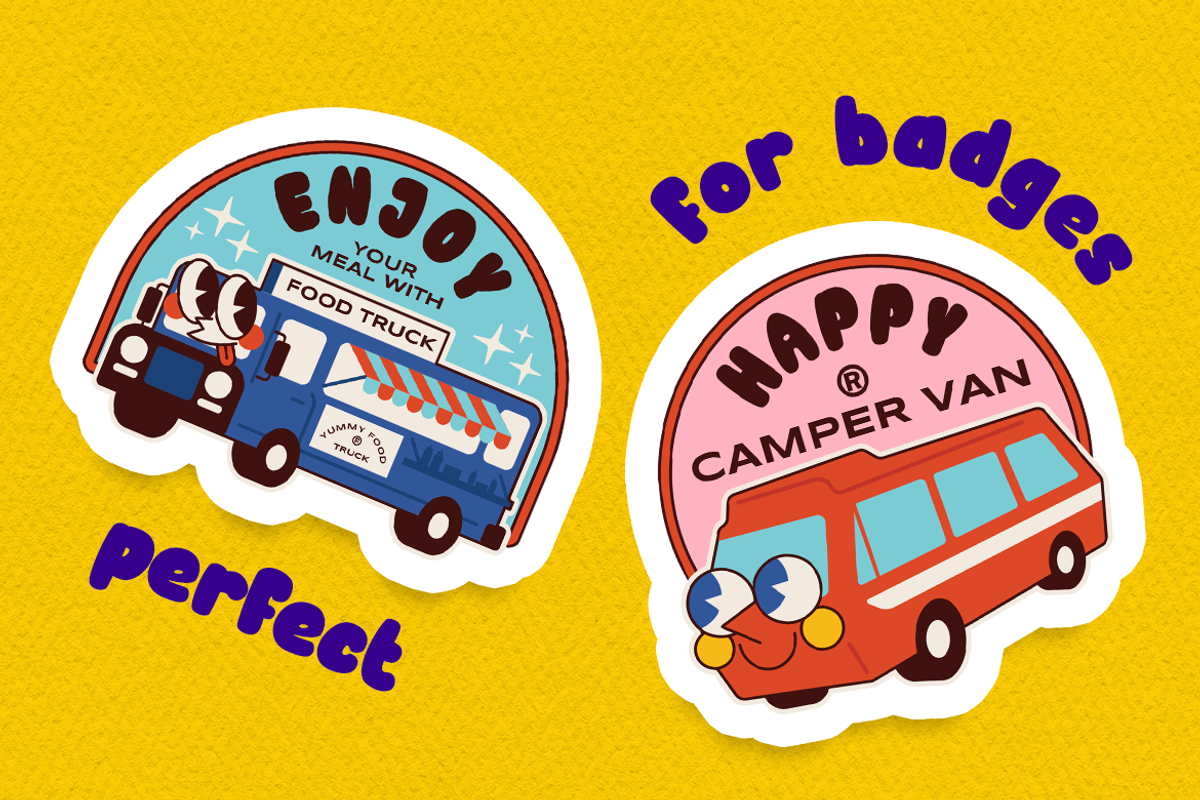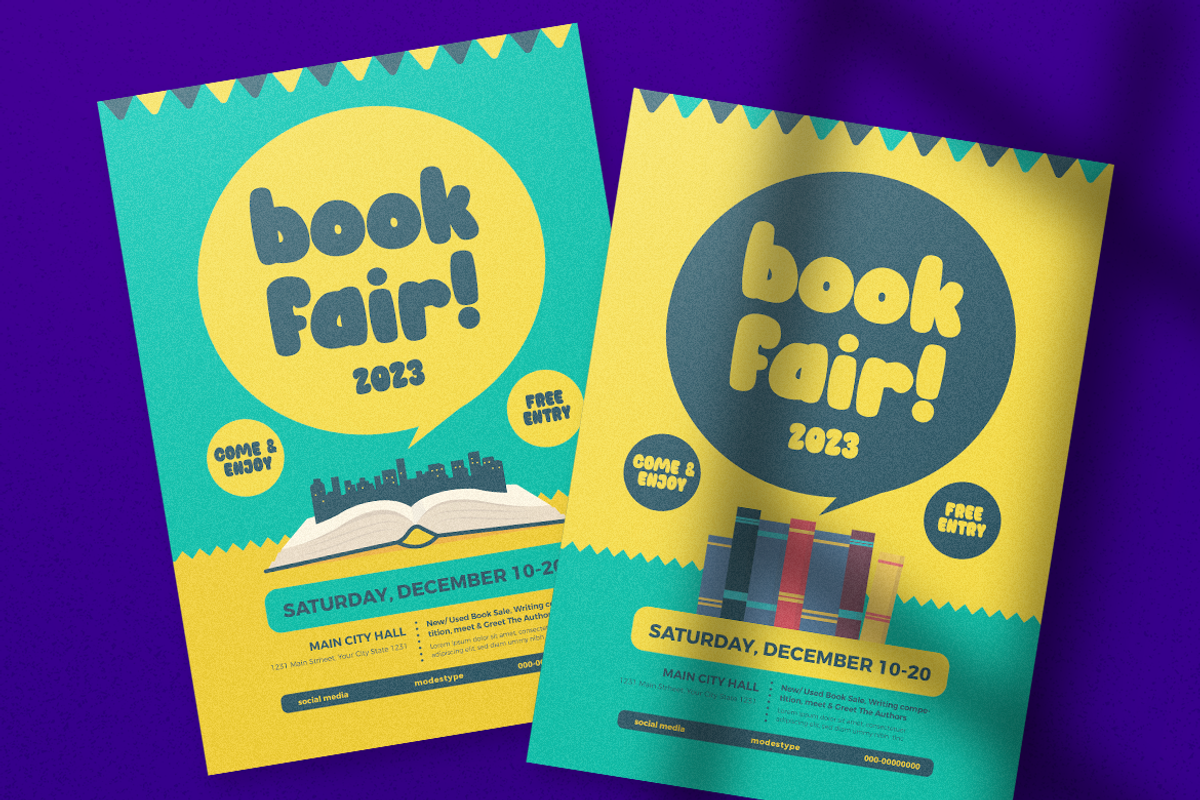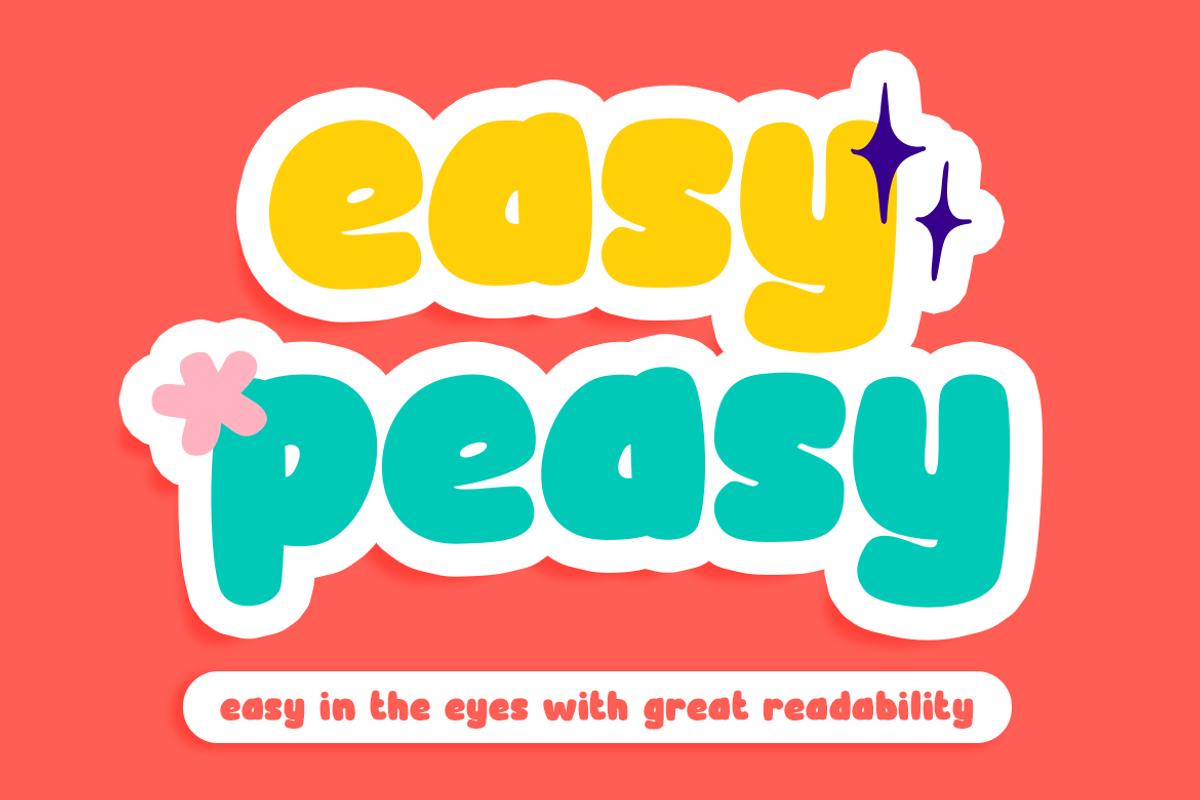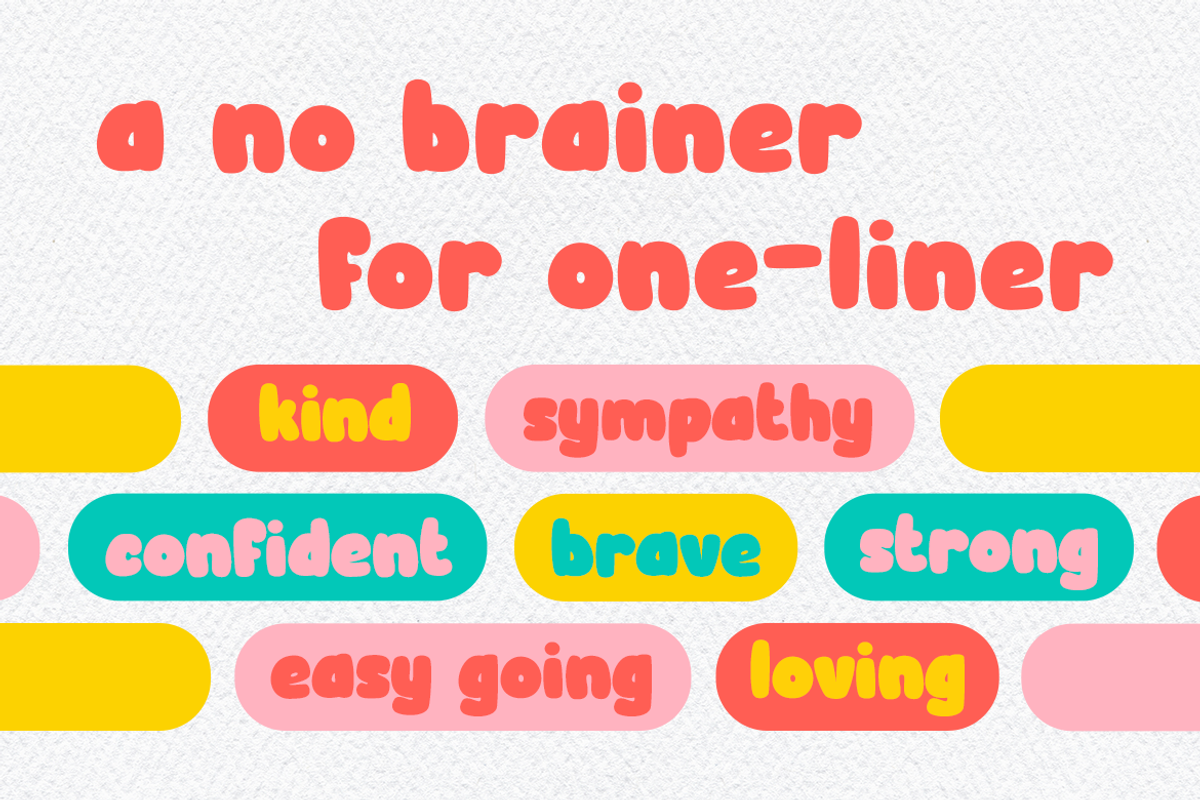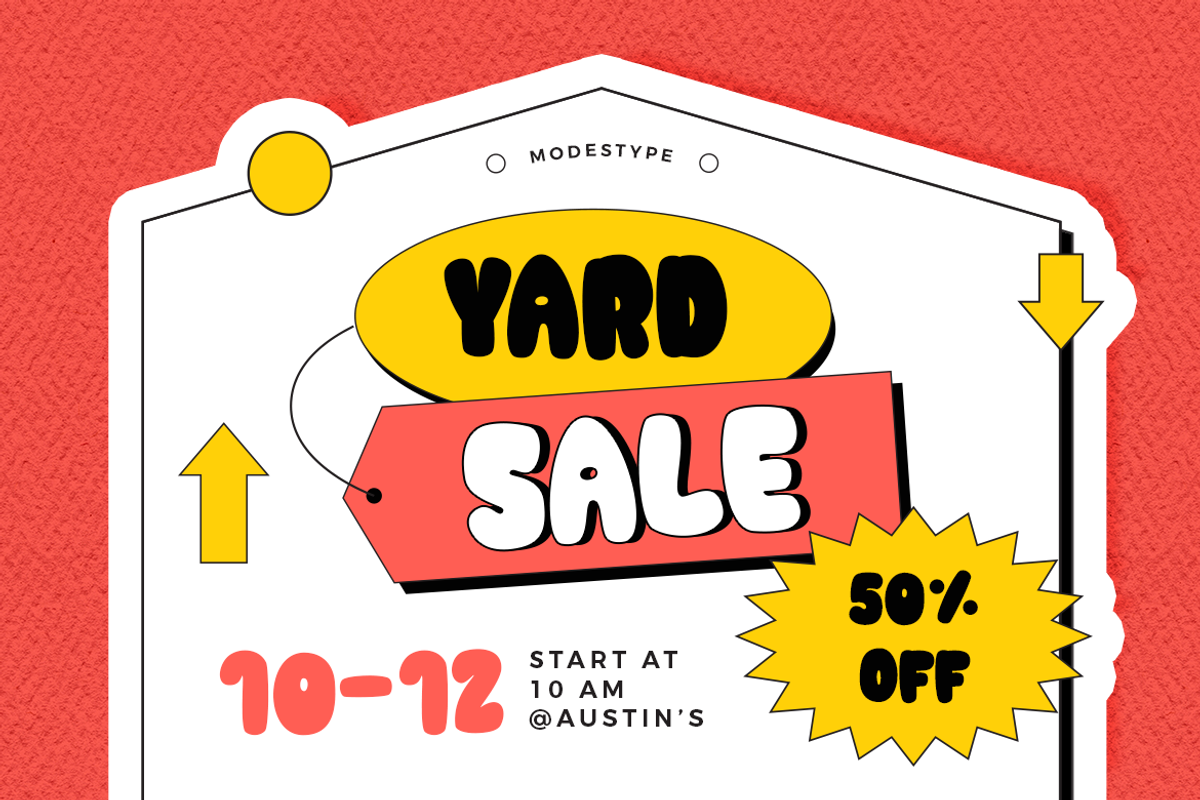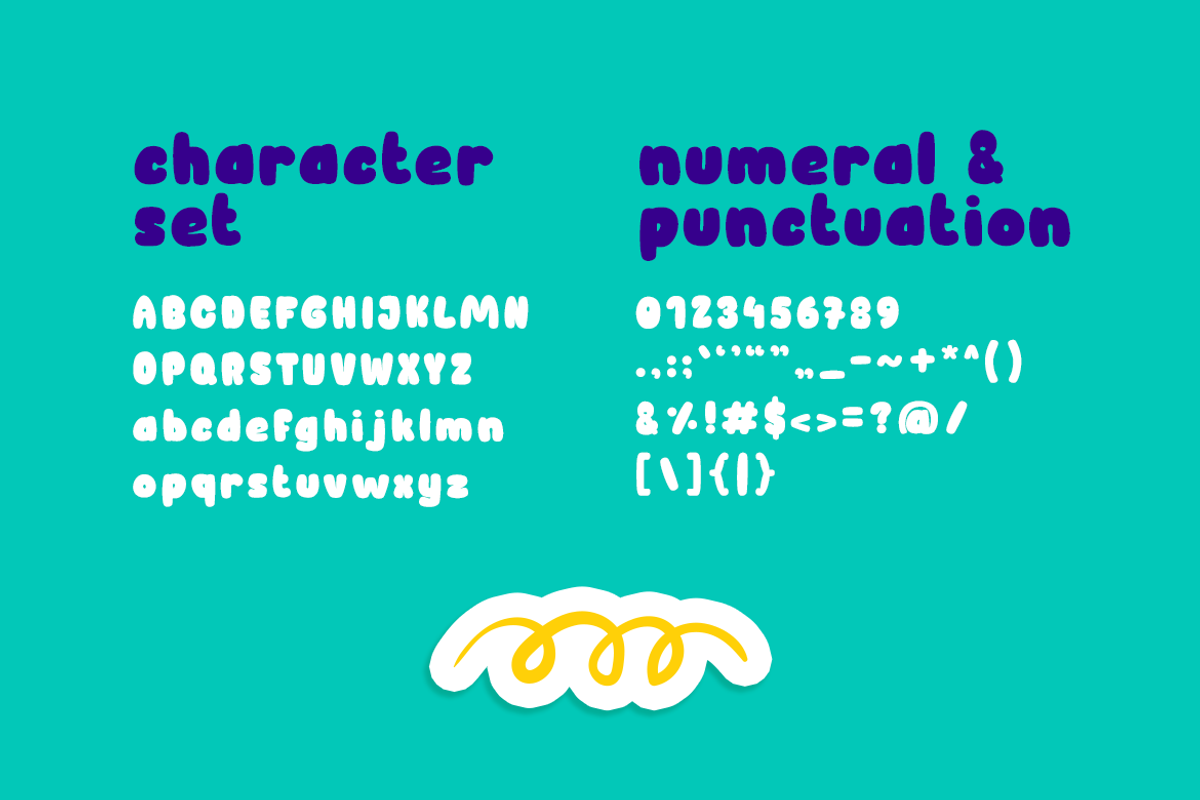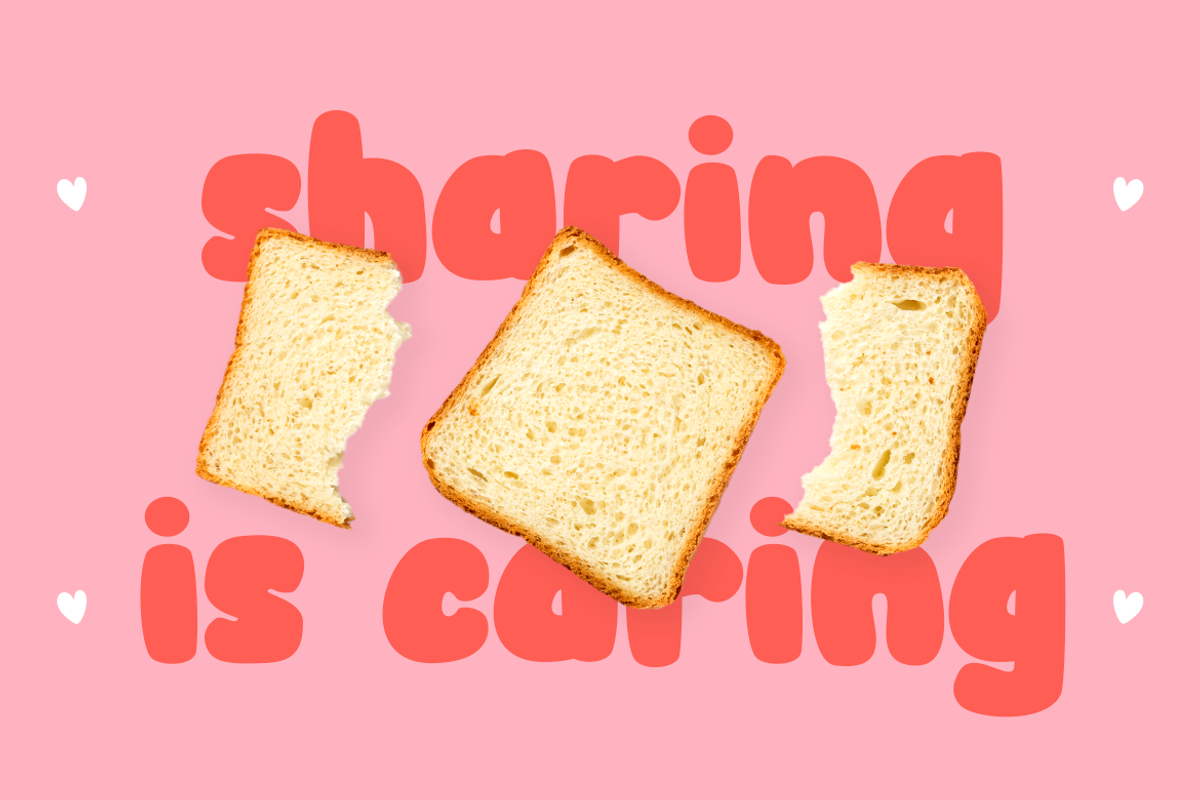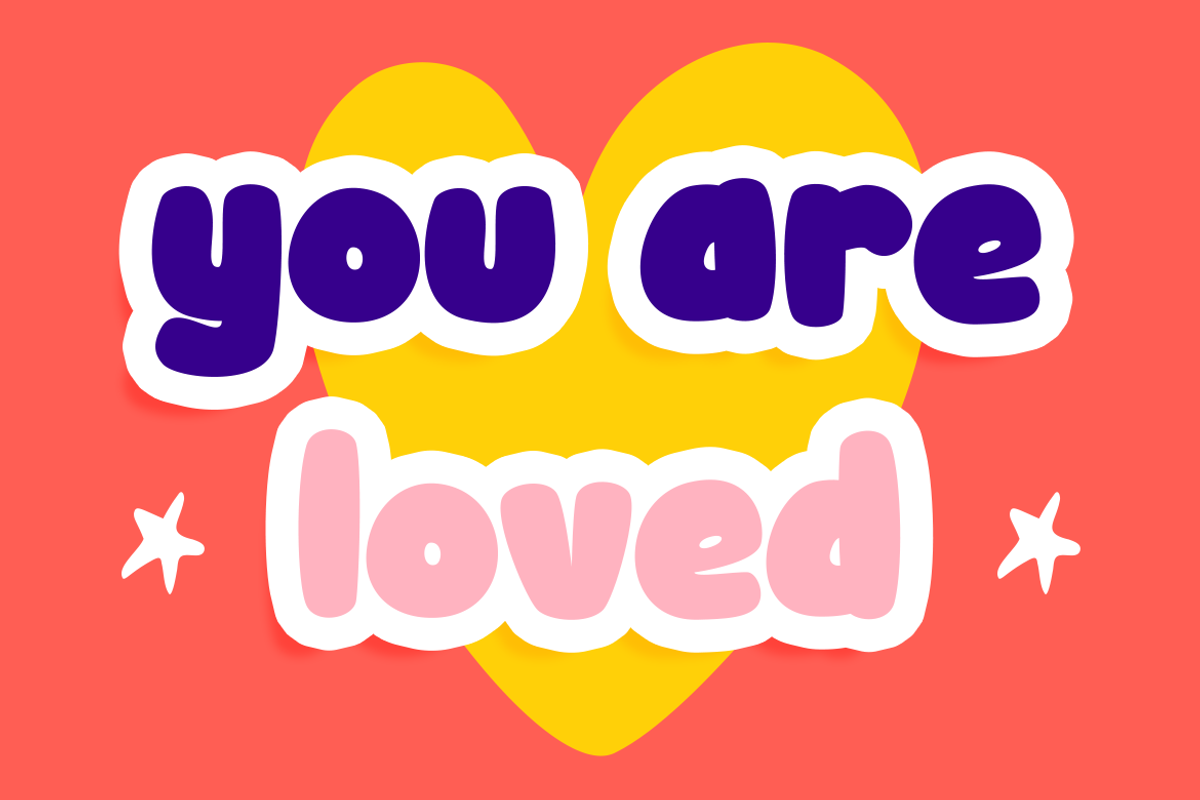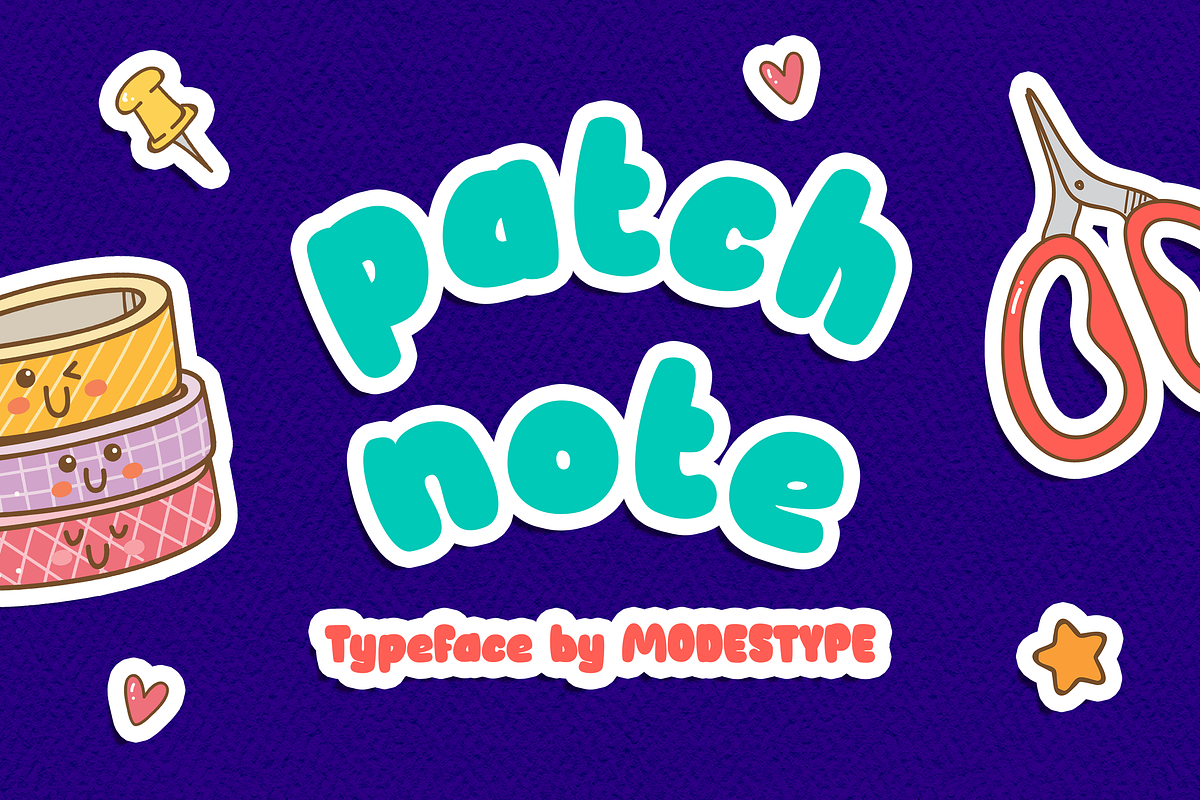
Patch Note - Chubby Kids Font
Patch Note - Kids Font
Cute and chubby font that suits perfectly as a stickers material. Simple but yet so impactful for the teen world.
Suit perfectly for girly books market, online games, teens event poster, school supplies font, poster, movie title, youtube covers, youtube thumbnails, social media page covers and so on...